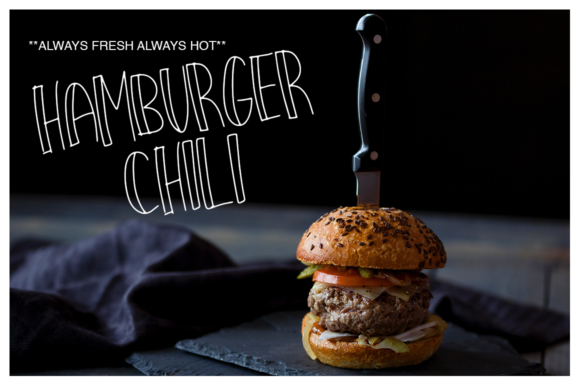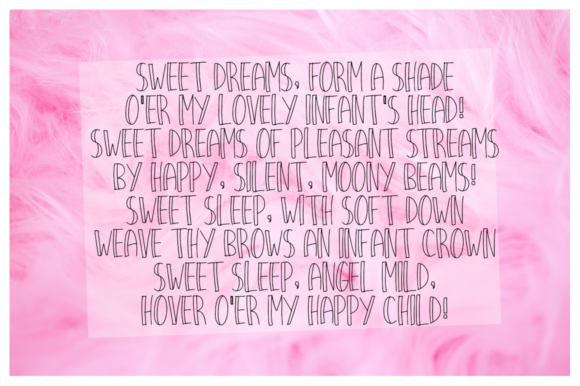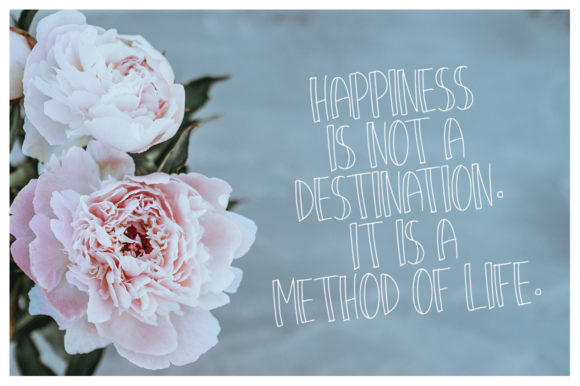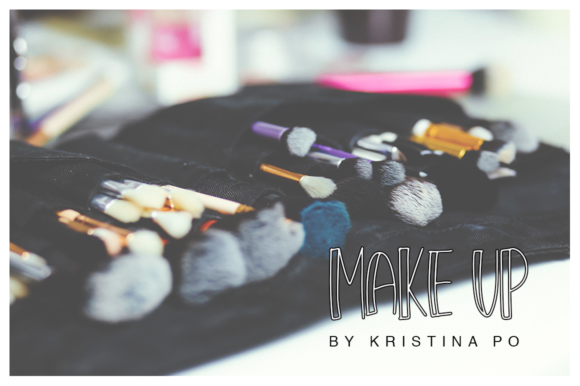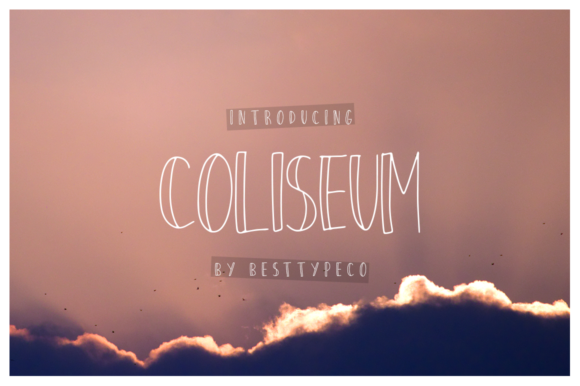
Introducing Coliseum Font: Elevate Your Designs with a Joyful Touch
In the world of design, fonts play a crucial role in conveying the message and tone of a project. A unique and eye-catching font can make all the difference in setting your work apart from the rest. If you’re a designer or crafter looking to add a touch of joy and personality to your creations, look no further than the Coliseum Font. In this article, we’ll dive into the features and benefits of this beautiful display font and explore how it can elevate your designs.
What is Coliseum Font?
Coliseum Font is a simple yet distinctive display font designed to add a playful and joyful touch to your designs. Its unique style makes it perfect for a wide range of creative projects, from branding and advertising to packaging and digital media. With its clean lines and elegant curves, Coliseum Font is sure to capture the attention of your audience and leave a lasting impression.
Key Features of Coliseum Font
• Unique and Eye-Catching Design: Coliseum Font boasts a one-of-a-kind design that sets it apart from more traditional fonts. Its distinctive style is sure to make your designs stand out in a crowded marketplace.
• Simple yet Elegant: Despite its unique design, Coliseum Font remains simple and easy to read. Its clean lines and elegant curves make it perfect for use in a variety of creative projects.
• Versatile: Coliseum Font is incredibly versatile and can be used in a wide range of design applications, from digital media to print materials.
Benefits of Using Coliseum Font
So why should you choose Coliseum Font for your next design project? Here are just a few benefits of using this beautiful display font:
• Adds a Touch of Personality: Coliseum Font adds a playful and joyful touch to your designs, setting them apart from more traditional and boring fonts.
• Increases Engagement: The unique design of Coliseum Font is sure to capture the attention of your audience and keep them engaged.
• Enhances Brand Identity: Coliseum Font can help to establish a strong brand identity and create a consistent visual style across all of your marketing materials.
• Easy to Pair with Other Fonts: Coliseum Font pairs well with a wide range of other fonts, making it easy to create a cohesive and visually appealing design.
How to Use Coliseum Font in Your Designs
Using Coliseum Font in your designs is easy. Here are a few tips to get you started:
• Use it as a Title Font: Coliseum Font is perfect for use as a title font in presentations, reports, and other documents.
• Add it to Your Branding Materials: Use Coliseum Font in your branding materials, such as business cards, brochures, and letterheads, to create a consistent visual style.
• Use it in Digital Media: Coliseum Font is perfect for use in digital media, such as social media graphics, website headers, and email marketing campaigns.
• Experiment with Different Colors and Textures: Don’t be afraid to experiment with different colors and textures to really make your designs pop.
In conclusion, Coliseum Font is a beautiful and unique display font that can add a joyful touch to your designs. With its simple yet elegant design, versatility, and ease of use, it’s perfect for a wide range of creative projects. Whether you’re a designer, crafter, or simply someone looking to add a personal touch to your work, Coliseum Font is sure to impress. So why wait? Download Coliseum Font today and start elevating your designs to the next level!